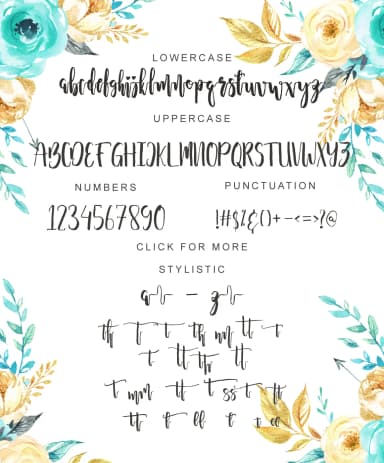
Fanttikha by Pineungtype & Missinklab is a contemporary handwritten script that merges traditional calligraphic sensibility with modern design vision. The typeface captures the organic movement of pen work while maintaining enough structure to remain clear and purposeful across applications. This script shines in specialized design contexts where authenticity matters. Consider wedding invitation suites that need an upscale, handcrafted feel, luxury beauty brand identities that benefit from its refined character, boutique restaurant menus seeking that artisanal touch, or artisanal packaging for high-end cosmetics and skincare. It also works beautifully for bespoke stationery, lifestyle brand social media graphics, and custom signage where the personal quality of handwritten letterforms strengthens perceived value. The balanced character set and consistent stroke weight make it legible even at smaller sizes, solving a common challenge with expressive scripts. What distinguishes Fanttikha is its restraint, it feels distinctly handmade without the sloppiness that undermines professional applications. The design respects both its calligraphic roots and contemporary expectations, giving designers a script that feels genuine rather than trying too hard. It's the kind of typeface that adds character to a project while letting the core design breathe. Discover Fanttikha on Creative Fabrica and add this sophisticated script to your typographic toolkit.
- Elegant, Flowing, Fanttikha
Fanttikha Font is a script font that shines as a display or heading face. Pair it with a clean sans-serif or serif font for body text β the contrast creates a clear hierarchy while the two styles stay balanced and easy to read.